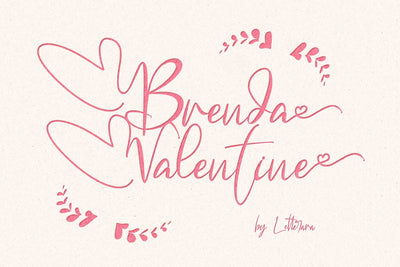
Brenda Valentine
Brenda Valentine is a cute handwritten font. It will add a romantic touch to any crafting project.
- Style in this font include: Regular & Italic
- Alternates, Swashes and Ligatures
- Support multilingual; ä ö ü Ä Ö Ü ß ¿ ¡